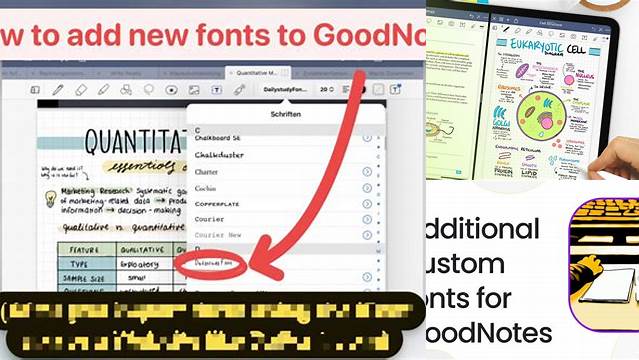
Add Fonts To GoodNotes: The Ultimate Guide
Are you a GoodNotes enthusiast looking to jazz up your digital notes with some fancy fonts? You're in the right place, my friend! Adding custom fonts to GoodNotes can seriously level up your note-taking game, making your digital notebooks more visually appealing and personalized. This guide will walk you through every step of the process, from understanding why you'd want to do this, to the nitty-gritty details of installing and using your new fonts. Let's get started, shall we?
Why Bother Adding Fonts to GoodNotes? The Benefits
Alright, so you're probably wondering, "Why should I even bother adding fonts to GoodNotes?" Well, the reasons are plentiful, my friends! Let's break down the awesome benefits:
Personalization: First and foremost, adding custom fonts is all about making your notes uniquely yours. The default fonts, while perfectly functional, can feel a bit generic. Custom fonts allow you to express your personality and style, making your digital notebooks a true reflection of you. Imagine the possibilities! You could go for a sleek, modern font for your work notes, a playful, handwritten style for your creative projects, or a vintage-inspired font for your journaling. The choice is yours!
Enhanced Visual Appeal: Let's face it, pretty fonts make things more enjoyable. Whether you're a student, a professional, or a creative, making your notes more visually appealing can make the process of note-taking itself more engaging. A well-chosen font can highlight important information, create visual hierarchy, and make your notes a joy to read and review. Say goodbye to boring notebooks and hello to visually stunning digital documents!
Improved Readability: While aesthetics are important, functionality is key. A good font can actually improve readability. Some fonts are specifically designed for legibility, making it easier to scan and absorb information quickly. This is especially useful when you're studying, brainstorming, or taking notes in a fast-paced environment. Choose fonts that are easy on the eyes and help you stay focused on the content.
Creative Expression: Adding custom fonts opens up a world of creative possibilities. You can experiment with different styles, sizes, and weights to create stunning layouts, eye-catching headings, and visually engaging designs. Whether you're creating digital art, designing presentations, or simply sprucing up your to-do lists, the right fonts can help you bring your ideas to life. Unleash your inner designer and let your creativity flow!
Differentiation: In a world of digital notes, standing out from the crowd is essential. Custom fonts can help you differentiate your notes from others, making them more memorable and impactful. If you're presenting your notes, sharing them with colleagues, or simply want to impress yourself, a unique font can make all the difference. It's like adding a personal signature to your digital work.
So, there you have it, guys! Adding custom fonts to GoodNotes is a fantastic way to personalize your notes, enhance visual appeal, improve readability, boost creative expression, and stand out from the crowd. Now, let's dive into how you can actually do it.
Step-by-Step Guide: Installing Fonts on Your iPad for GoodNotes
Okay, now for the fun part – the step-by-step guide to installing fonts on your iPad so you can use them in GoodNotes. This process might seem a little techy at first, but trust me, it's pretty straightforward. We'll break it down into easy-to-follow steps. You got this!
Find Your Fonts: The first thing you'll need is the font files themselves. You can find tons of free and paid font options online. Some popular websites include:
- Google Fonts: A massive library of free, open-source fonts. This is a great place to start! (Highly Recommended)
- DaFont: Another great resource for free fonts, with a wide variety of styles.
- Creative Market and Etsy: Offer premium fonts for purchase. (Highly Recommended)
- Font Squirrel: Provides high-quality free fonts, focusing on commercial-use licenses.
Make sure you download the font files in a compatible format, usually
.ttf(TrueType Font) or.otf(OpenType Font).
Download a Font Management App: Unfortunately, iOS (the iPad's operating system) doesn't have a built-in font installer. You'll need to use a font management app. Some popular choices include:
- iFont: A free and user-friendly app that makes installing fonts a breeze. (Highly Recommended)
- AnyFont: Another solid option, offering a range of features for font management.
- Fontcase: Provides a clean interface to install and manage your fonts. Download your preferred font management app from the App Store. Make sure the app is compatible with your iPad's current operating system.
Import Your Fonts into the App: Once you've downloaded your font files and installed a font management app, it's time to import the fonts into the app. Here's how it typically works:
- Open your font management app (e.g., iFont).
- Look for an "Import" or "Open" button, usually represented by an arrow pointing upwards or a folder icon.
- Navigate to the location where you saved your font files (Downloads, iCloud Drive, etc.) and select the
.ttfor.otffiles you downloaded. - The app will process the files and add the fonts to its library.
Install the Fonts: This is where the magic happens! The installation process can vary slightly depending on the app you're using, but the general steps are usually:
- In your font management app, select the fonts you want to install.
- Look for an "Install" or "Install All" button. The app might prompt you to install a configuration profile. This is a necessary step for iOS to recognize the fonts.
- Follow the on-screen instructions to install the configuration profile. You might need to go to your iPad's Settings app to complete the installation.
- Once the profile is installed, the fonts should be available for use in apps like GoodNotes!
Verify the Installation: Before you get too excited, it's a good idea to verify that the fonts have been successfully installed. You can do this in a couple of ways:
- Check in Settings: Go to your iPad's Settings app, then tap on "General" and then "Fonts". You should see a list of the fonts you've installed.
- Test in Another App: Open a text editor app (like Pages or Microsoft Word) and try selecting your new fonts. If they appear in the font list, you're golden!
And that's it! You've successfully installed fonts on your iPad. Now, let's move on to the exciting part – using them in GoodNotes!
Using Your New Fonts in GoodNotes: A Quick Tutorial
Alright, you've got your fonts installed, and you're ready to unleash your inner font enthusiast in GoodNotes. Here's how to use those beautiful new fonts to spice up your notes:
Open GoodNotes and Select the Text Tool: Launch the GoodNotes app on your iPad. Create a new notebook or open an existing one. Tap on the text tool (the "T" icon in the toolbar). This is the tool you'll use to add text to your notes.
Choose Your Font: Tap on the text box you want to edit or create a new text box by tapping on the page. A formatting toolbar will appear, usually at the bottom of the screen. Tap on the font selection dropdown. It usually displays the currently selected font's name (e.g., "Helvetica" or "Times New Roman"). This will open a list of available fonts.
Find Your Installed Fonts: Scroll through the font list until you find the fonts you installed using your font management app. They should be listed alongside the default GoodNotes fonts. The new fonts are usually located at the top or at the bottom of the list.
Select Your Desired Font: Tap on the font you want to use. The selected font will be applied to your text. You can also adjust the font size, color, and other formatting options in the formatting toolbar.
Start Typing!: Begin typing your text. You'll see your chosen font appear in your notes. Experiment with different font sizes, styles, and colors to create visually appealing and organized notes. You can resize, move, and edit the text boxes as needed.
Enjoy Your Personalized Notes: That's it! You're now using your custom fonts in GoodNotes. Have fun creating beautiful and personalized notes that reflect your style and preferences. Try different font combinations, sizes, and colors to find what works best for you.
Tips and Tricks for Using Fonts in GoodNotes
Here are some extra tips and tricks to help you make the most of your new fonts in GoodNotes:
- Font Pairing: Experiment with different font pairings to create visually interesting layouts. Combine a bold heading font with a more readable body font for a balanced look.
- Font Size and Weight: Pay attention to font size and weight. Use larger, bolder fonts for headings and subheadings to create a clear visual hierarchy. Choose appropriate font sizes for body text to ensure readability.
- Color Coordination: Use font colors to highlight important information and create visual interest. Match font colors with your chosen notebook template or color scheme.
- Spacing and Alignment: Adjust line spacing and text alignment to improve readability and visual appeal. Experiment with different spacing options to create a clean and organized look.
- Font Variety: Don't be afraid to experiment with different fonts. Mix and match various styles to add depth and personality to your notes.
- Font Licensing: Always check the font's license to make sure you can use it for your intended purpose (e.g., personal use, commercial use). Some fonts may have restrictions on how they can be used.
Troubleshooting Common Font Issues in GoodNotes
Sometimes, things don't go quite as planned. If you encounter any issues with your fonts in GoodNotes, don't panic! Here are some common problems and how to troubleshoot them:
Font Not Showing Up:
- Double-check the installation: Make sure you followed all the steps in the installation guide, including installing the configuration profile.
- Restart GoodNotes and your iPad: Sometimes, a simple restart can solve the problem.
- Verify in Settings: Go to your iPad's Settings app, then tap on "General" and then "Fonts". Make sure the font is listed there.
- Reinstall the Font: Try reinstalling the font through your font management app.
- Check Font Compatibility: Make sure the font is compatible with iOS and GoodNotes.
Font Appears Garbled or Incorrectly:
- Corrupted Font File: The font file might be corrupted. Try downloading the font again from the source and reinstalling it.
- Font Conflict: There might be a conflict with another font. Try removing recently installed fonts and see if the problem resolves.
- App Compatibility: The font may not be fully compatible with the GoodNotes app; check the developer's support page or forum for known issues.
Font Doesn't Appear in the Font List:
- Font Management App Issues: Ensure your font management app is working correctly. Try reinstalling it or contacting its support team.
- Profile Installation Problems: The configuration profile associated with the font might not be installed correctly. Go to Settings > General > Profiles and make sure it's installed and enabled.
Font Looks Different Than Expected:
- Font Rendering Issues: The font might render differently on your iPad than it does on other devices. This is often a compatibility or rendering issue; it is rarely a major issue that can usually be fixed with a reboot.
- Font Variations: Some fonts have different variations (e.g., regular, bold, italic). Make sure you've selected the correct variation in GoodNotes.
If you've tried these troubleshooting steps and are still experiencing problems, you might consider contacting GoodNotes support for assistance. They can provide more specific guidance for your situation.
Conclusion: Unleash Your Inner Font Nerd!
Well, folks, there you have it! You're now equipped with the knowledge and skills to add custom fonts to GoodNotes. Go forth and personalize your digital notebooks, create visually stunning notes, and express your unique style. Embrace the world of fonts and let your creativity run wild!
Adding custom fonts to GoodNotes is a game-changer for anyone who loves digital note-taking. It's a fun and rewarding way to make your notes more visually appealing, improve readability, and express your personality. So, what are you waiting for? Start exploring the vast world of fonts and transform your GoodNotes experience today! Happy note-taking!